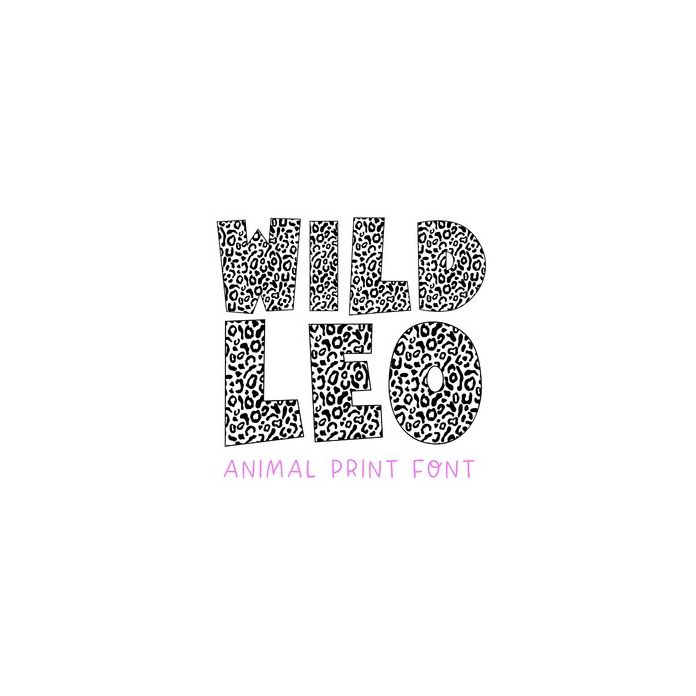
BFC Wild Leo Bold Animal Leopard Print Font
Wild Leo is a bold leopard print font. This font is very detailed and will have lots of single pieces when cut.